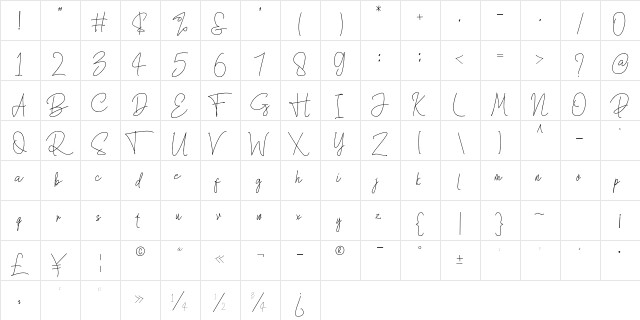
Rossttinggel Regular
Design Context for Rossttinggel Typeface
Rossttinggel is a composed and adaptable typeface that performs quietly and consistently across a wide range of design contexts.